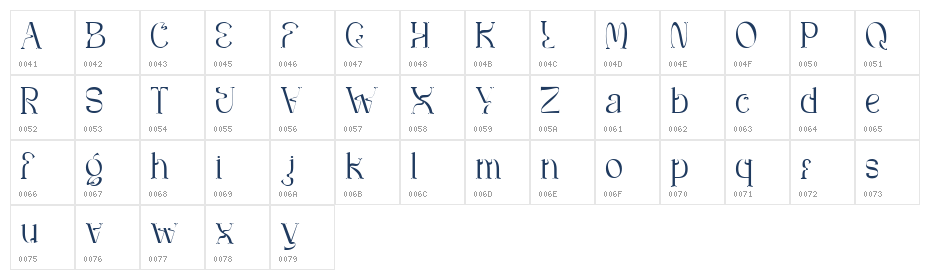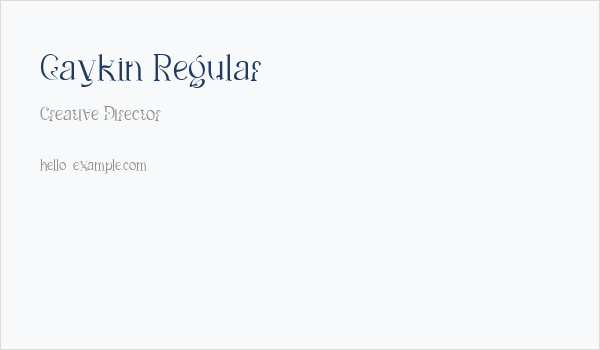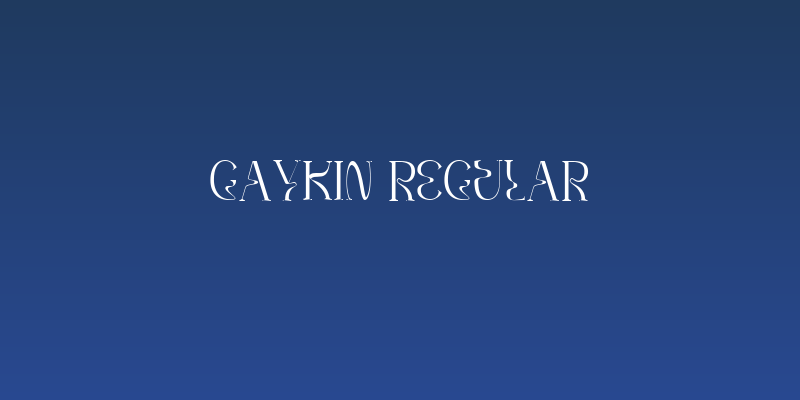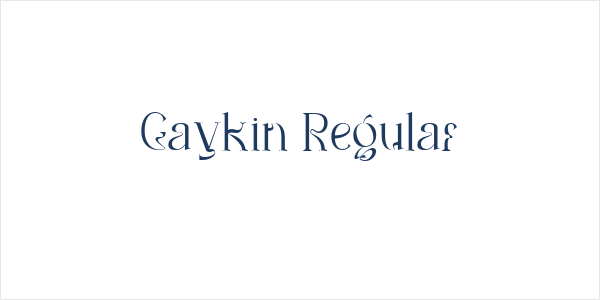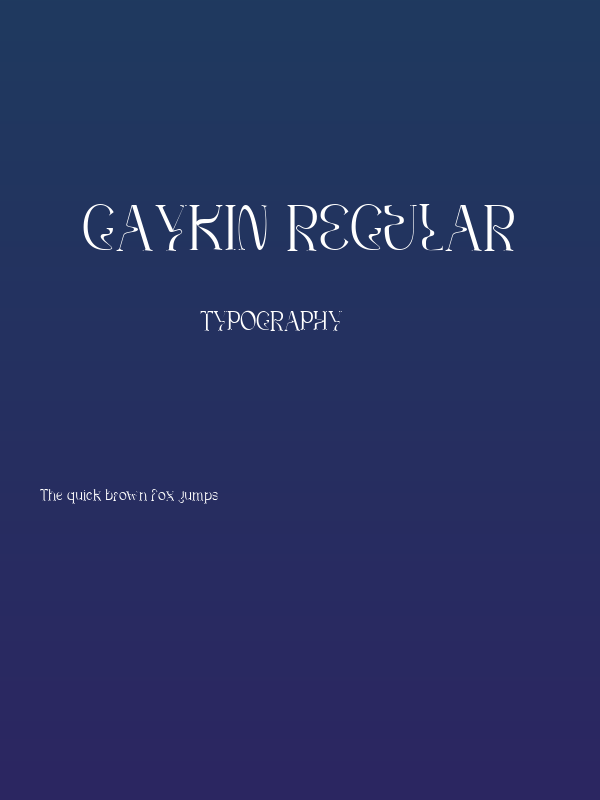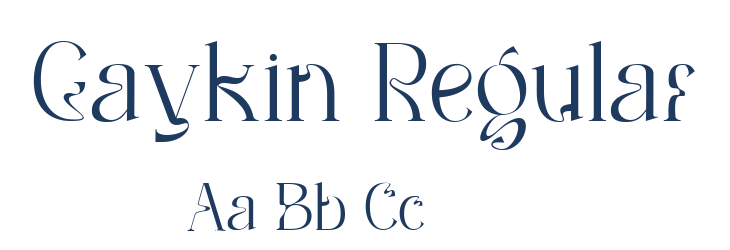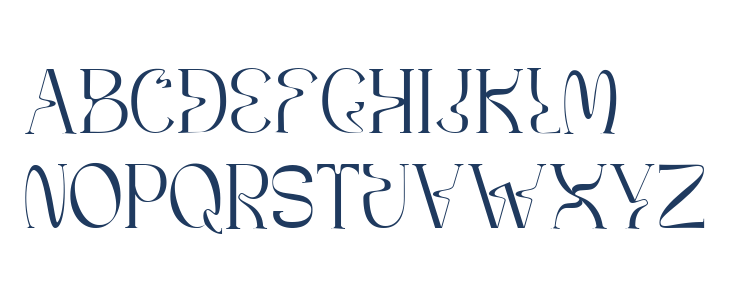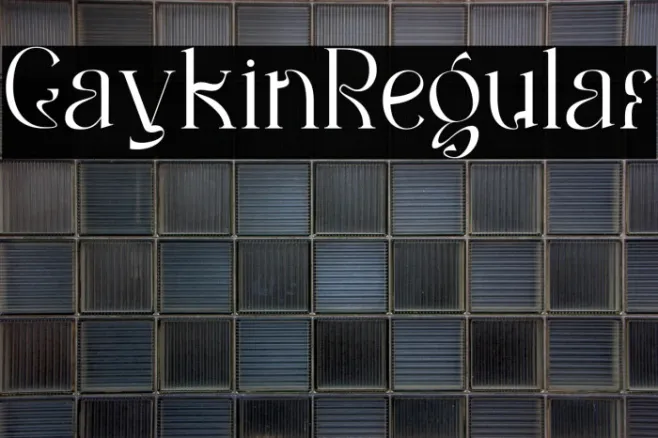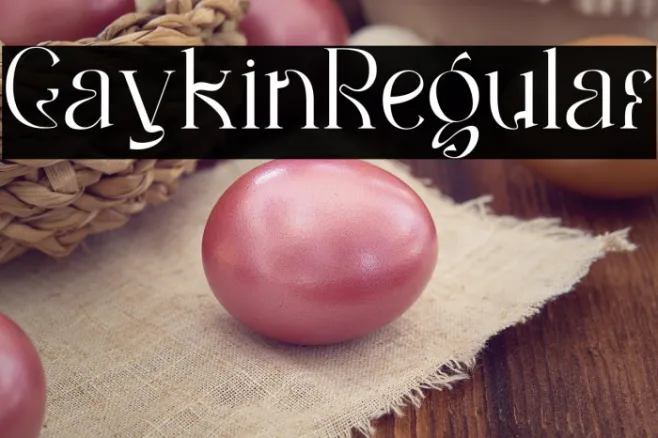
Gaykin Regular Font
Gaykin Regular Description
Elegant, decorative serif font with a vintage and artistic style, featuring unique character shapes and varying stroke widths.
| Overall Style | Vintage, Artistic, Elegant |
| Use Case | Headlines, Logos, Invitations, Branding |